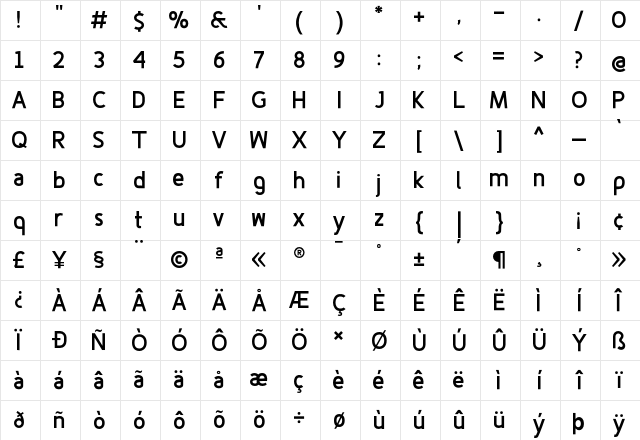
Fineness Pro Black Regular
Foundry: Asley Cruz
Designer: Asley Cruz
Design Context for Fineness Pro Black
Fineness Pro Black is a composed and adaptable typeface that performs quietly and consistently across a wide range of design contexts.